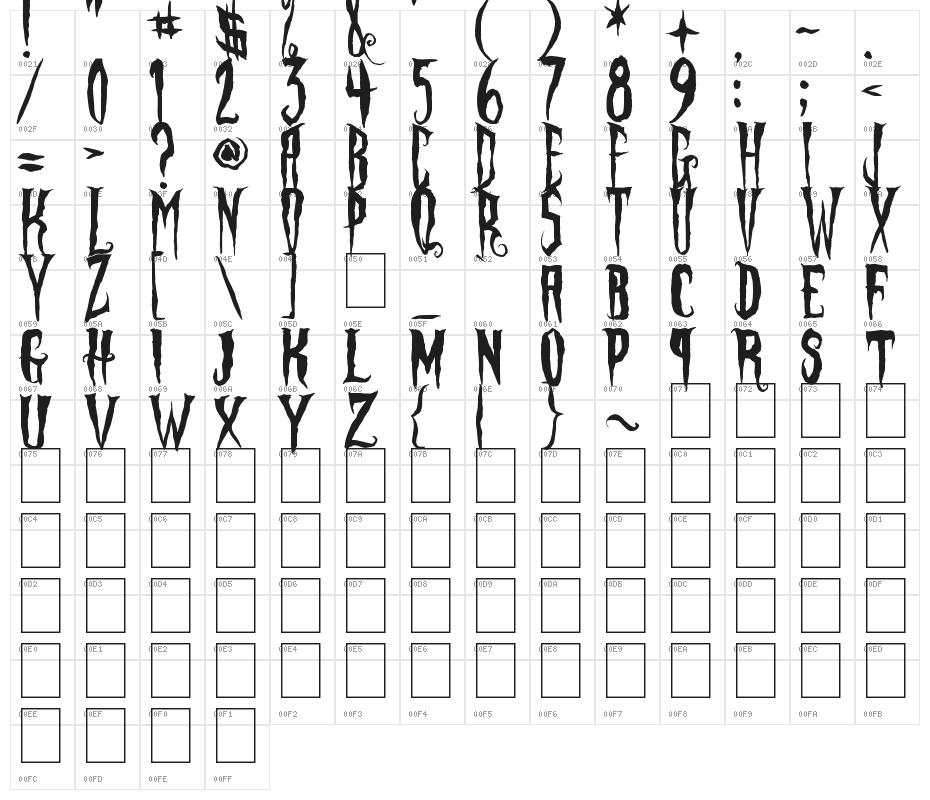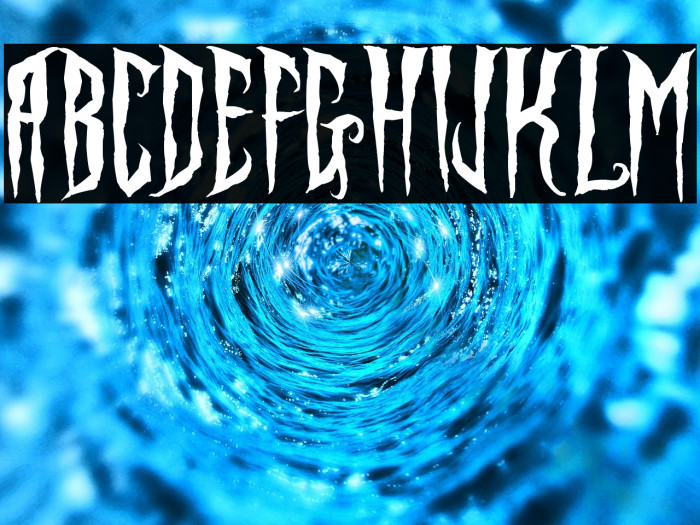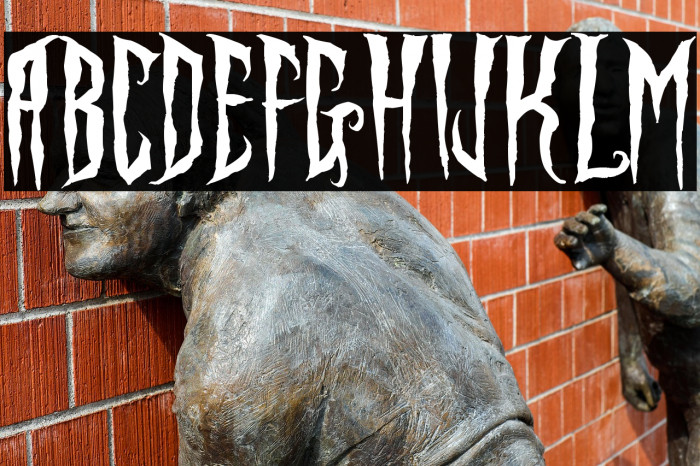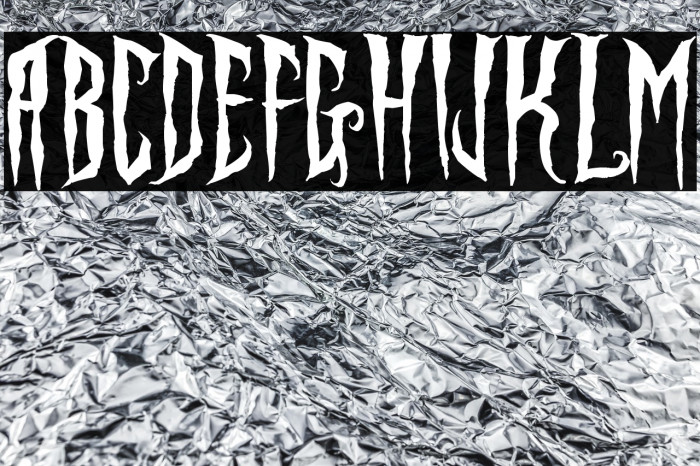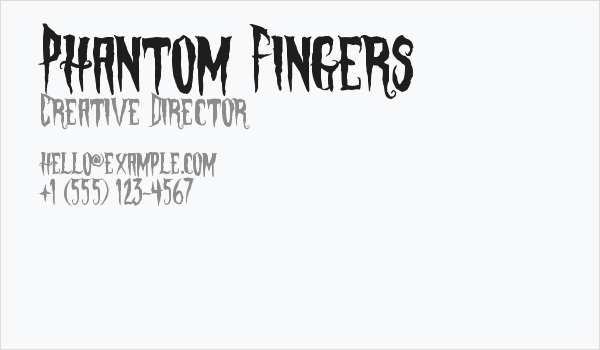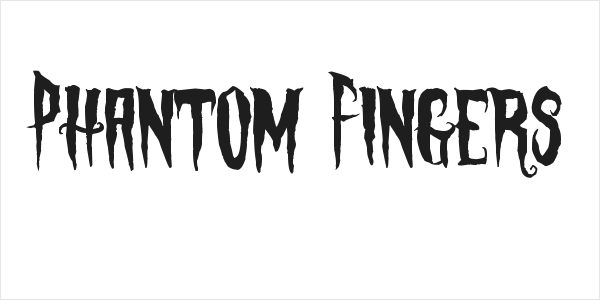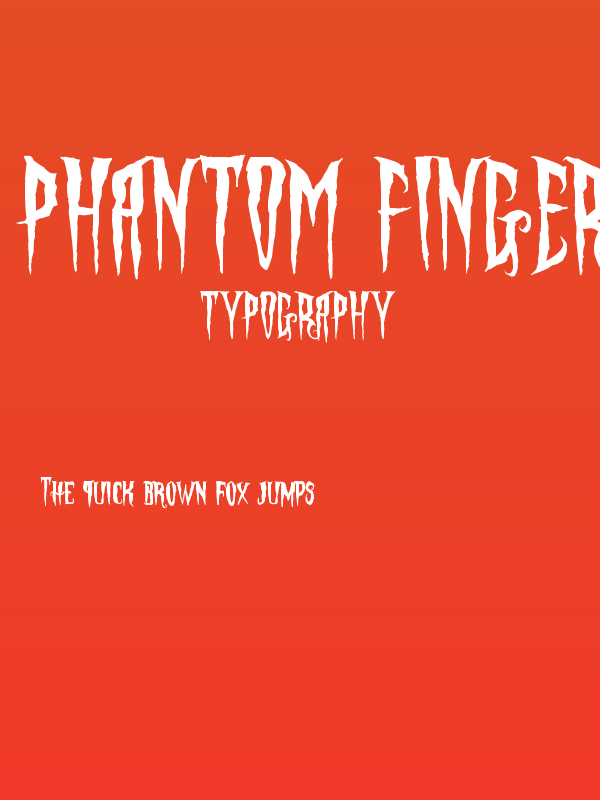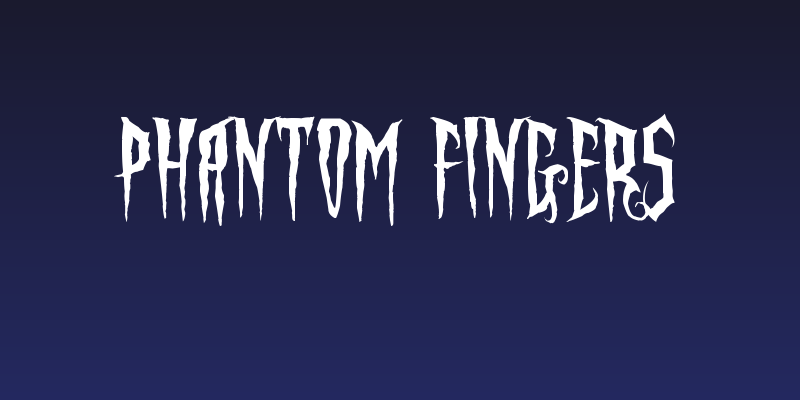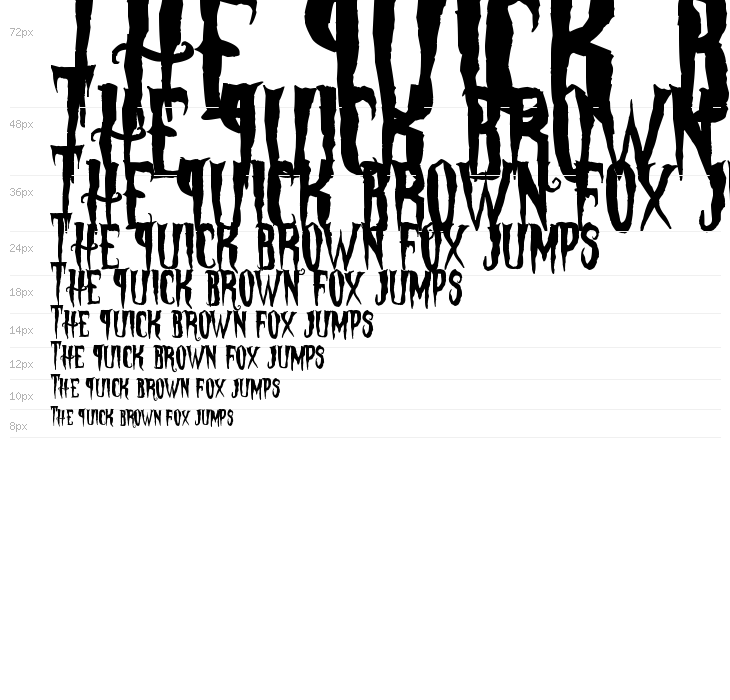
Phantom Fingers Font
Phantom Fingers Description
This font features a highly decorative and eerie style, reminiscent of gothic or horror themes. The characters are elongated with sharp, pointed edges, giving them a ghostly and dramatic appearance. The uppercase and lowercase letters maintain a consistent design, with a slightly irregular and hand-drawn feel. The numbers and special characters follow the same aesthetic, adding to the overall spooky and mysterious vibe. This font is perfect for creating a chilling atmosphere in design projects.
| Overall Style | Gothic, Horror, Decorative |
| Use Case | Headlines, Posters, Themed Events |
| Proposed Projects | Ideal for Halloween-themed designs, horror movie posters, spooky invitations, and gothic-style branding. |